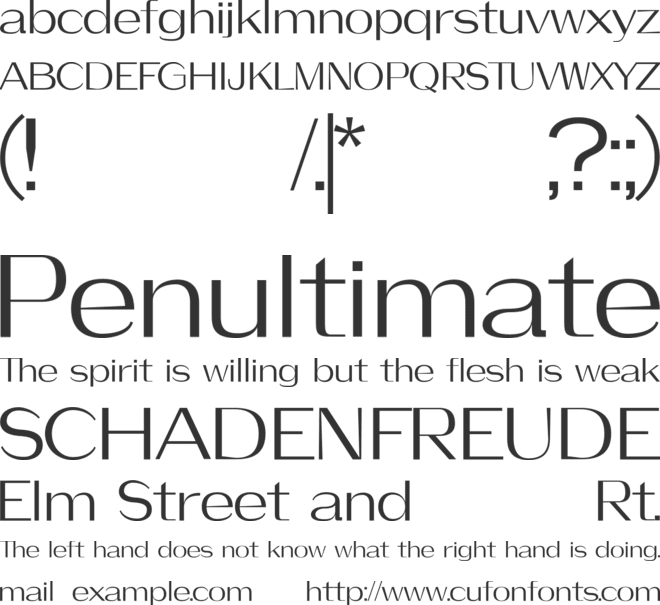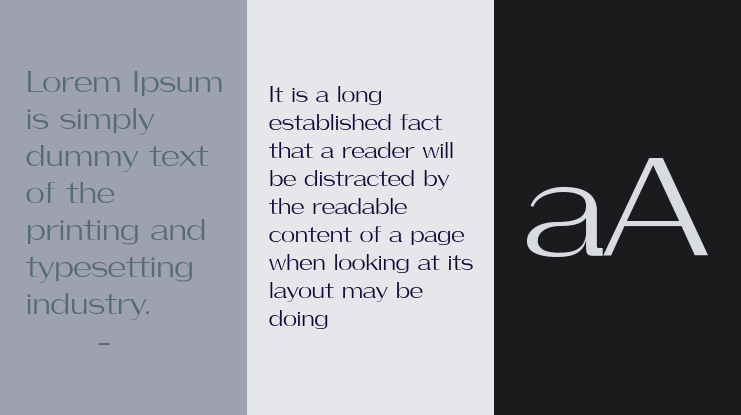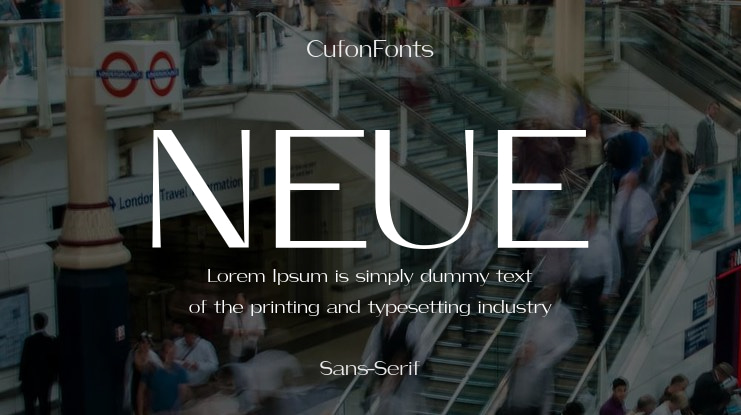
NEUE Font Family
🎨 Font Name: Neue by Minimalist Art Studio
🎨 Font Description: Neue refined sans is a minimalist sans serif with graceful clarity, perfect for fashion, branding, and editorial calm.
βœ” Alternates, stylistic sets & ligatures
βœ” Bonus italics and family styles